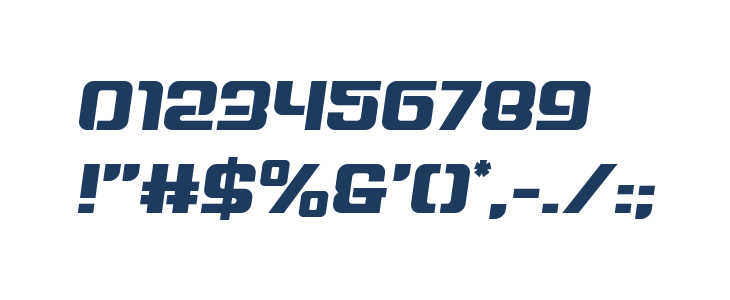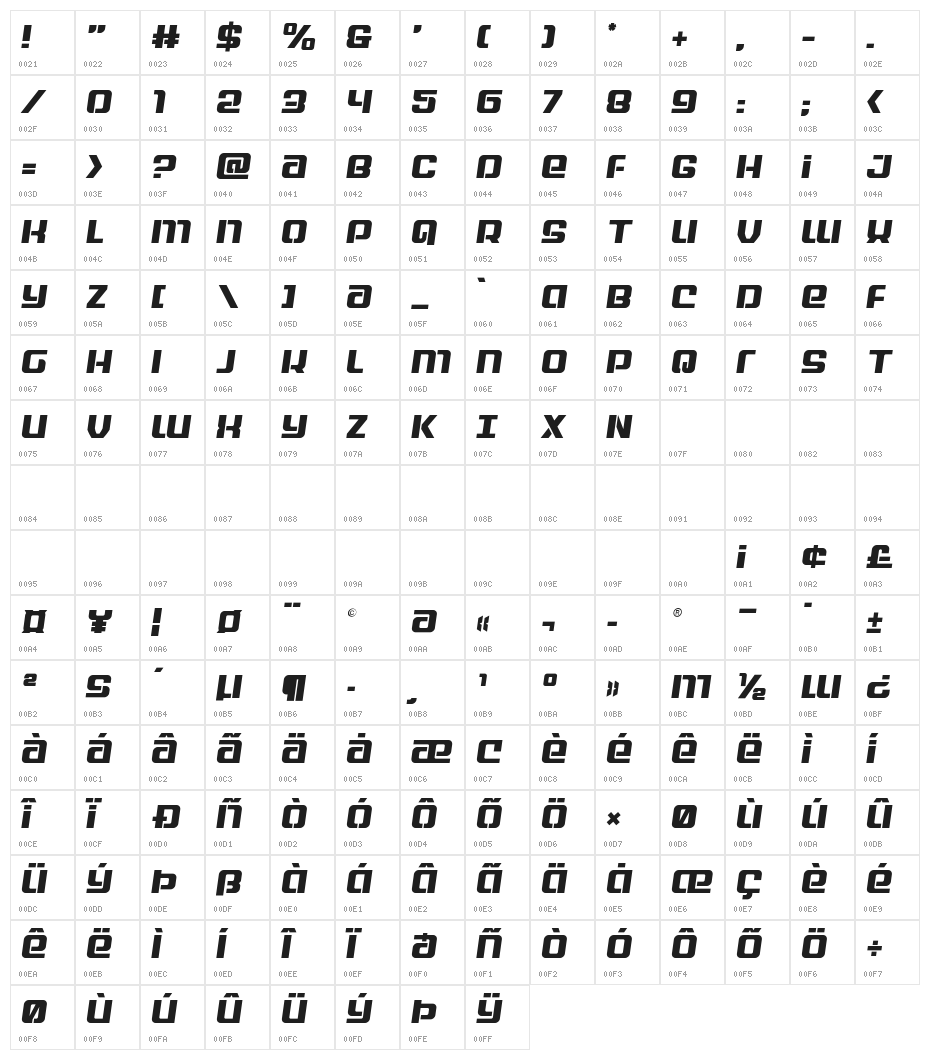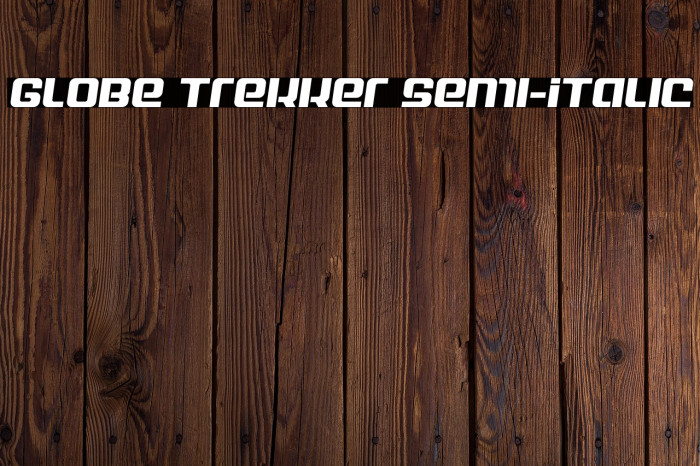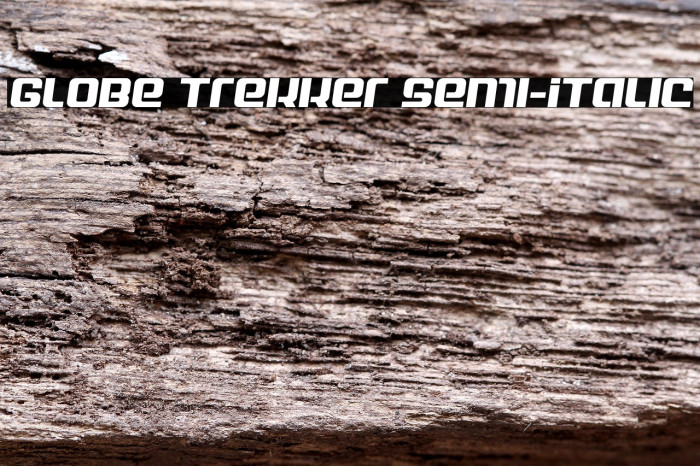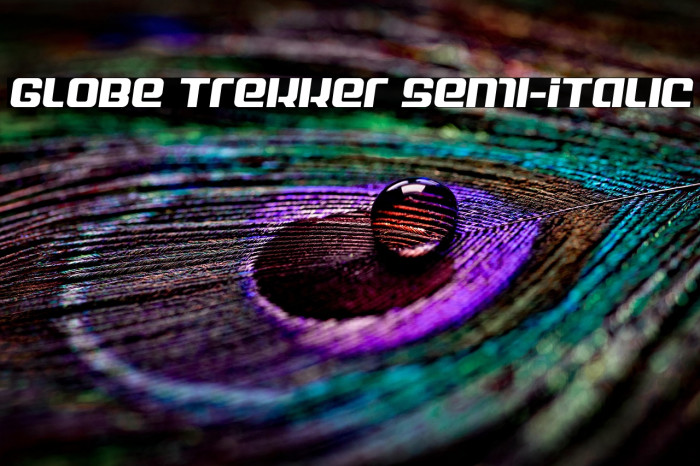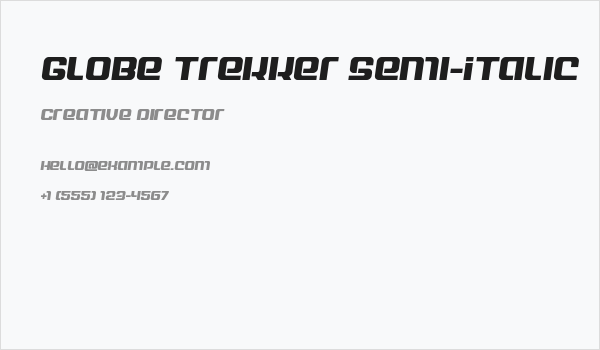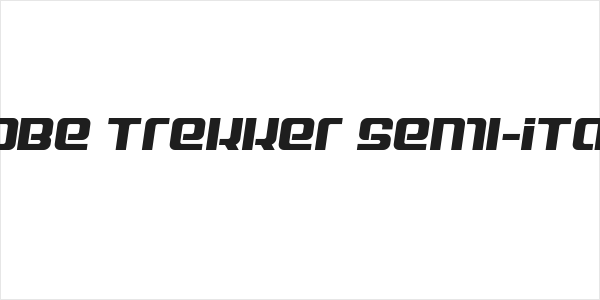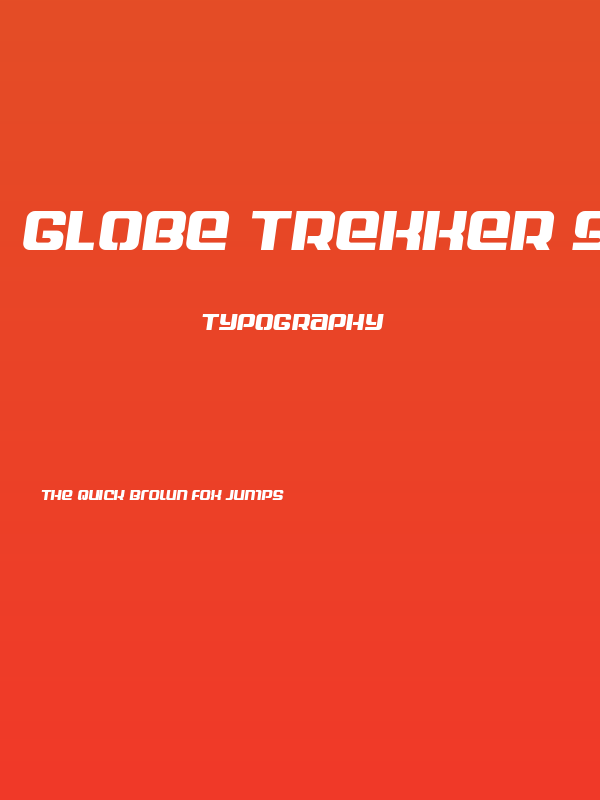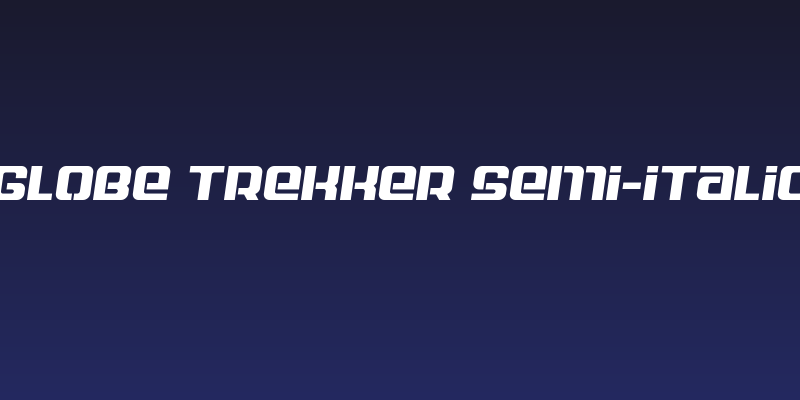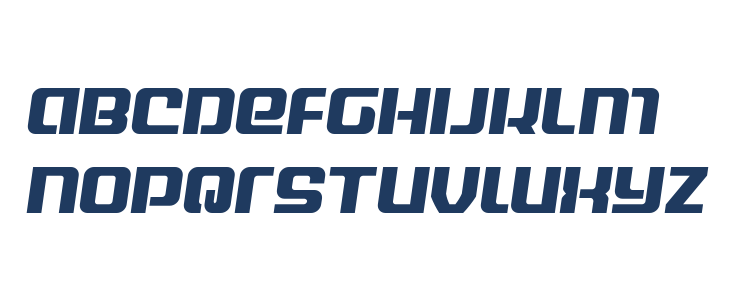
Globe Trekker Semi-Italic Font
Globe Trekker Semi-Italic Description
This font features a bold and dynamic style with semi-italicized characters, giving it a sense of motion and modernity. The characters are slightly slanted, enhancing the italic effect, while maintaining a strong and robust appearance. The strokes are thick and consistent, providing a uniform look across all characters. The design is clean and geometric, with rounded edges that soften the overall appearance. This font is highly legible, making it suitable for various applications where readability and impact are essential.
| Proposed Projects | Ideal for branding, sports team logos, dynamic posters, and modern web design. |